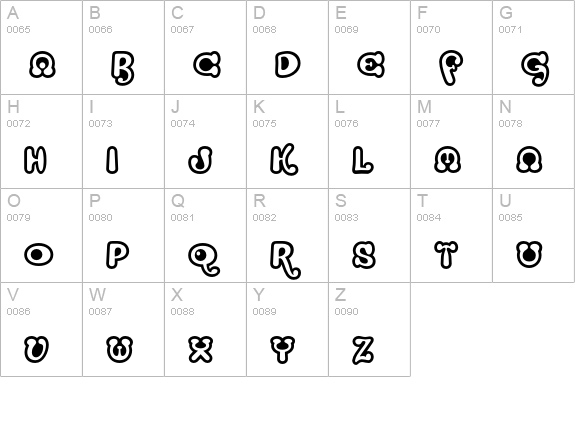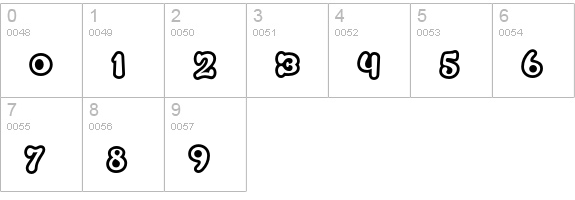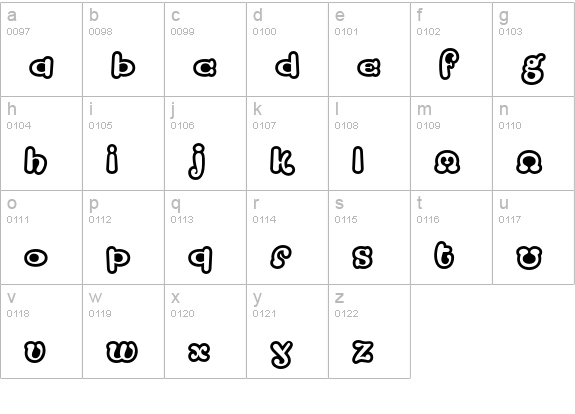
Strumpf Open Font Details
Strumpf Open is a modern and stylish font that exudes sophistication and elegance. Its clean lines and distinctive letterforms make it perfect for a wide range of design projects, from branding to editorial layouts. With its open and airy design, Strumpf Open adds a touch of class to any text it is applied to. What makes Strumpf Open even more appealing is that it is available for free download at FontsMarket.com. This means that you can easily access this versatile font to elevate your designs without any cost. Whether you are a designer looking for a fresh typeface or a business owner seeking a new look for your branding, Strumpf Open is a fantastic choice that won't break the bank. Download it today and see for yourself the impact it can have on your projects.